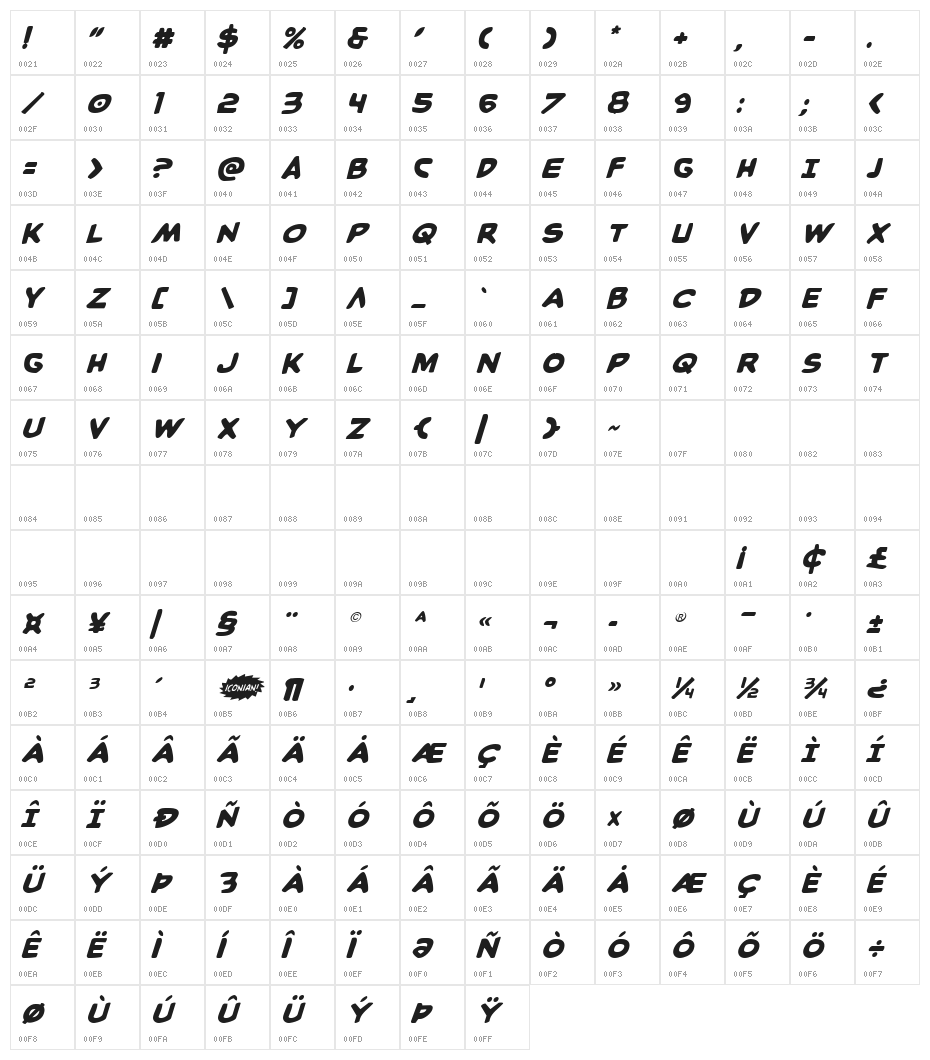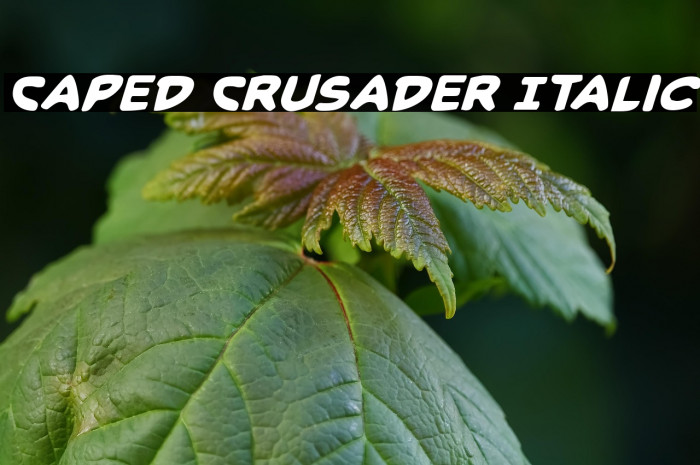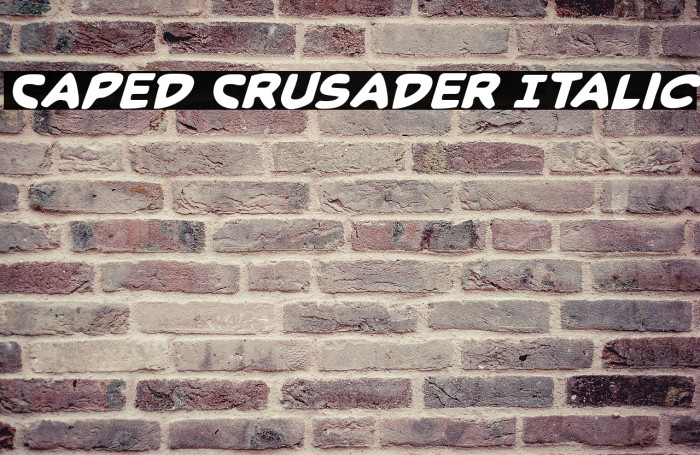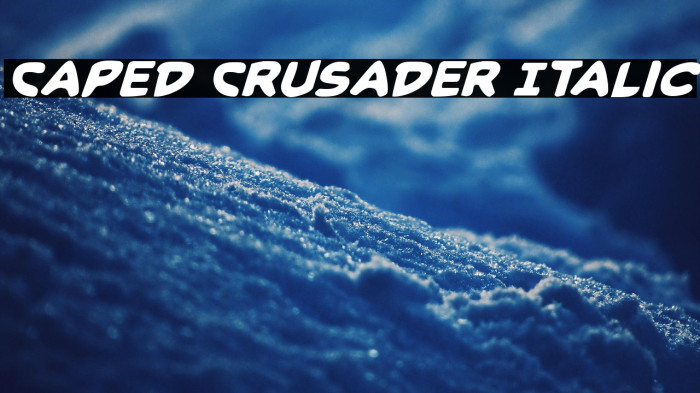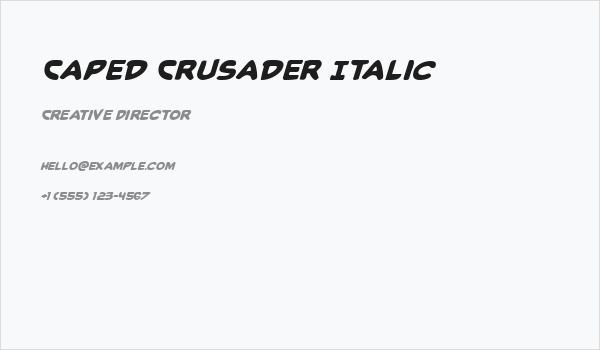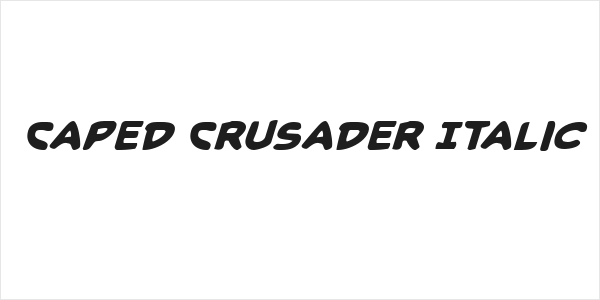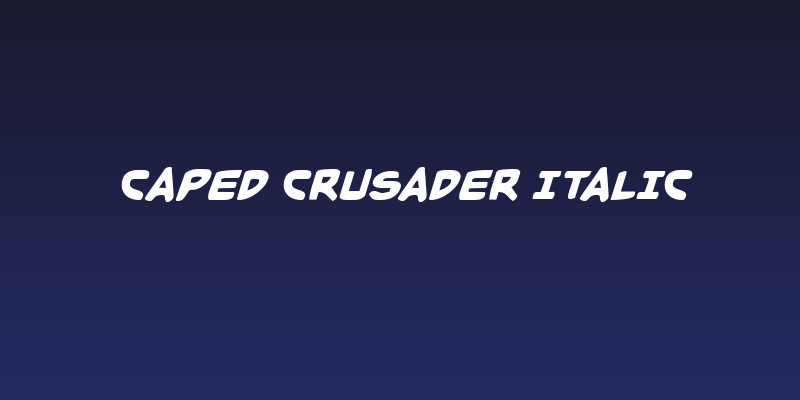
Caped Crusader Italic Font
Caped Crusader Italic Description
This font features a bold and dynamic style with a strong italic slant, giving it a sense of motion and energy. The characters are thick and rounded, providing a robust and impactful appearance. The uppercase and lowercase letters maintain a consistent style, with smooth curves and a slightly condensed form. The numbers and special characters are designed to match the boldness and slant of the letters, ensuring a cohesive look across all elements. This font's playful yet assertive design makes it suitable for attention-grabbing headlines and creative projects.
| Proposed Projects | Ideal for comic book titles, action-themed posters, and branding that requires a bold statement. |